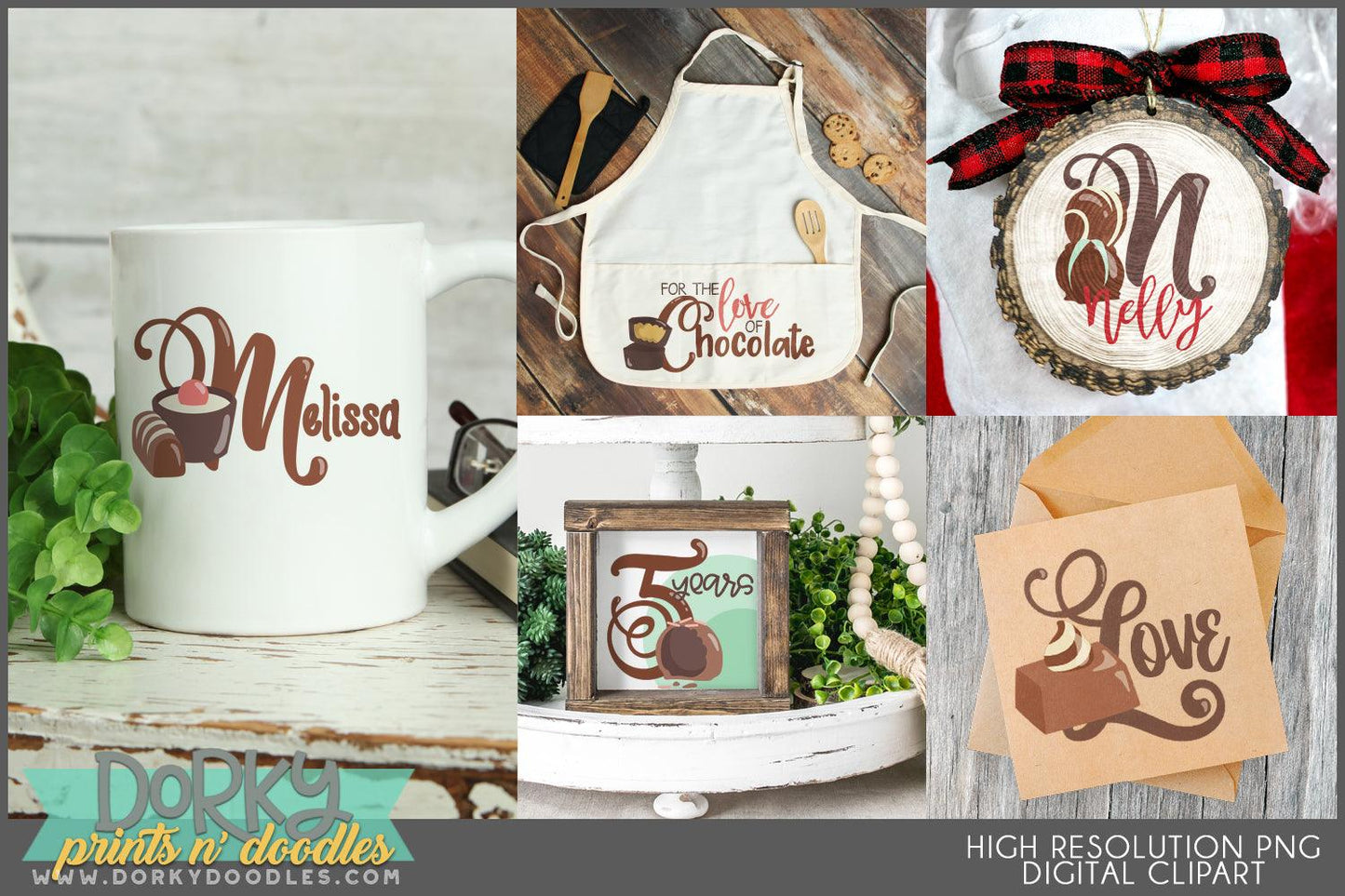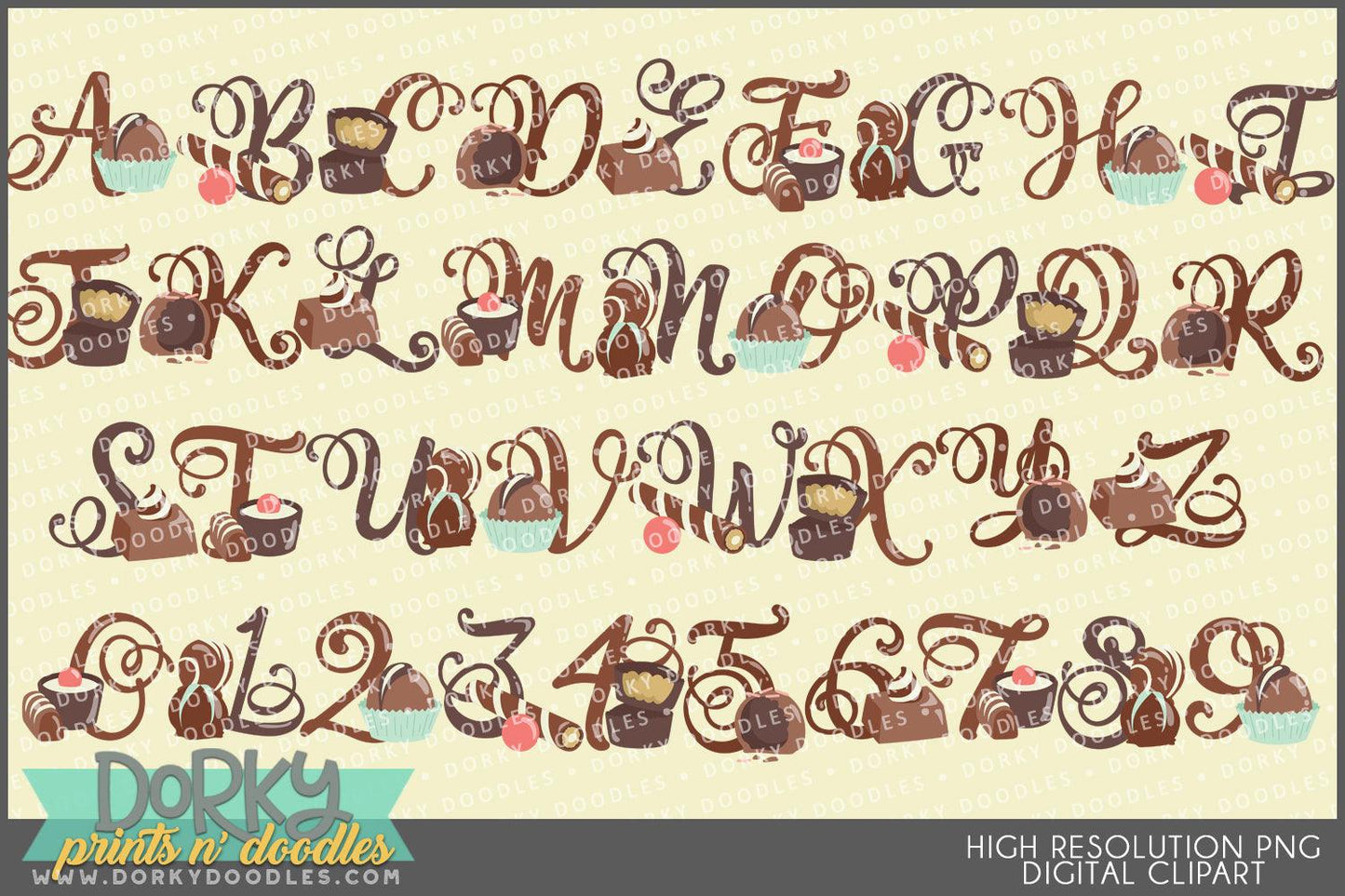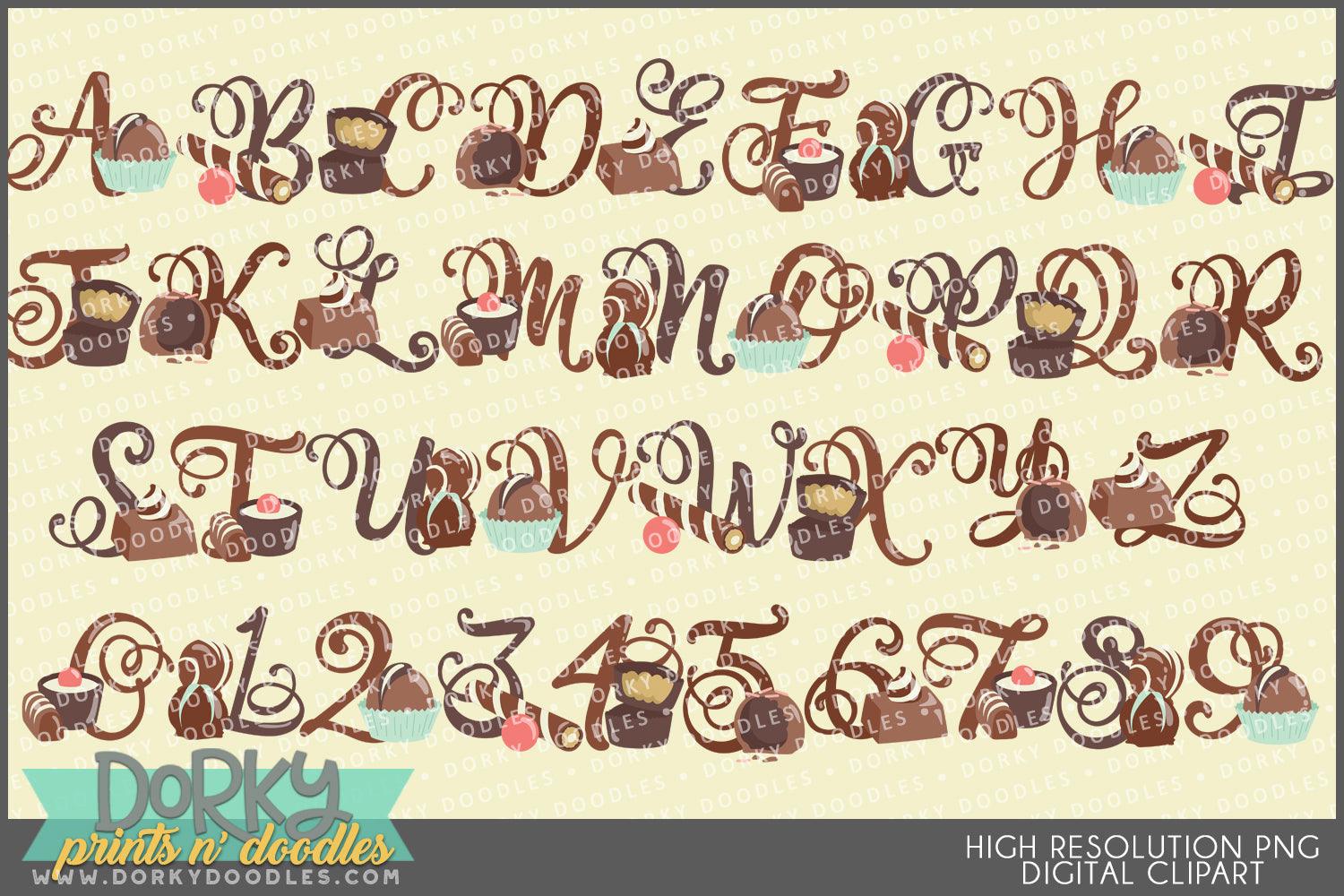
Chocolate Alphabet Clipart
With this set you get the following images:
• letters A-Z featuring chocolate candies and treats
• numbers 0-9 featuring dark chocolate and milk chocolate candy